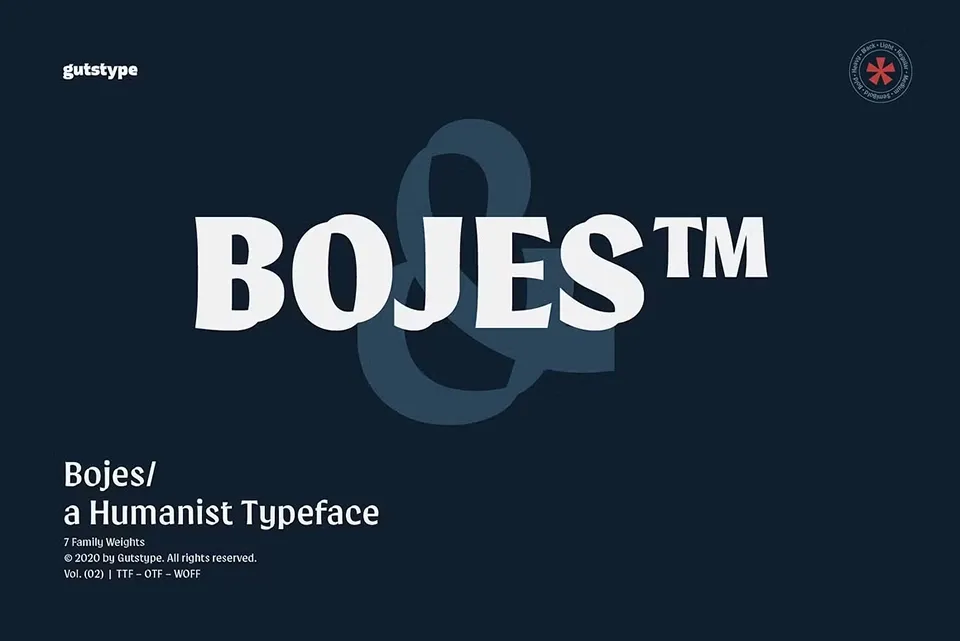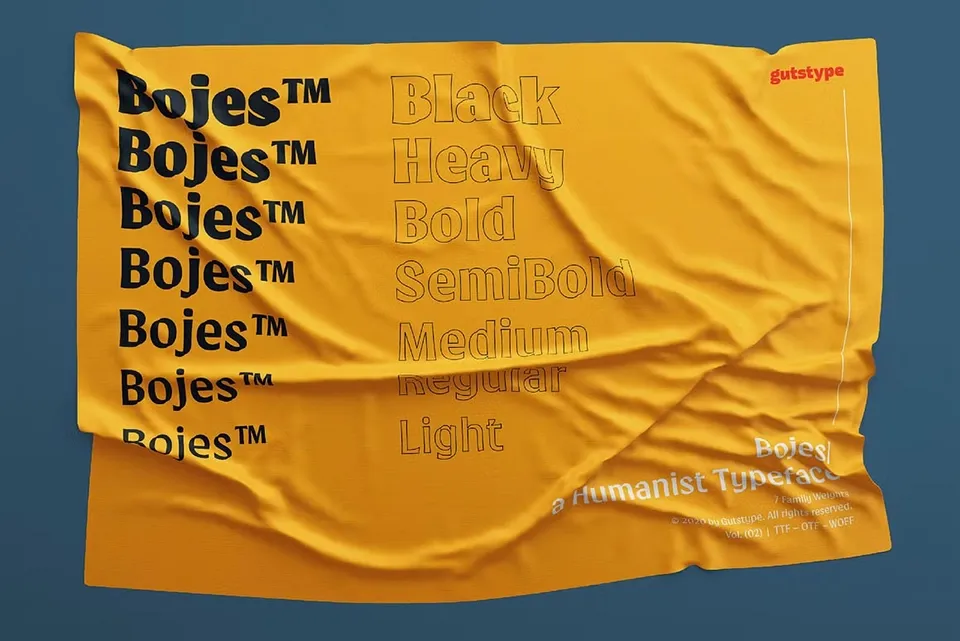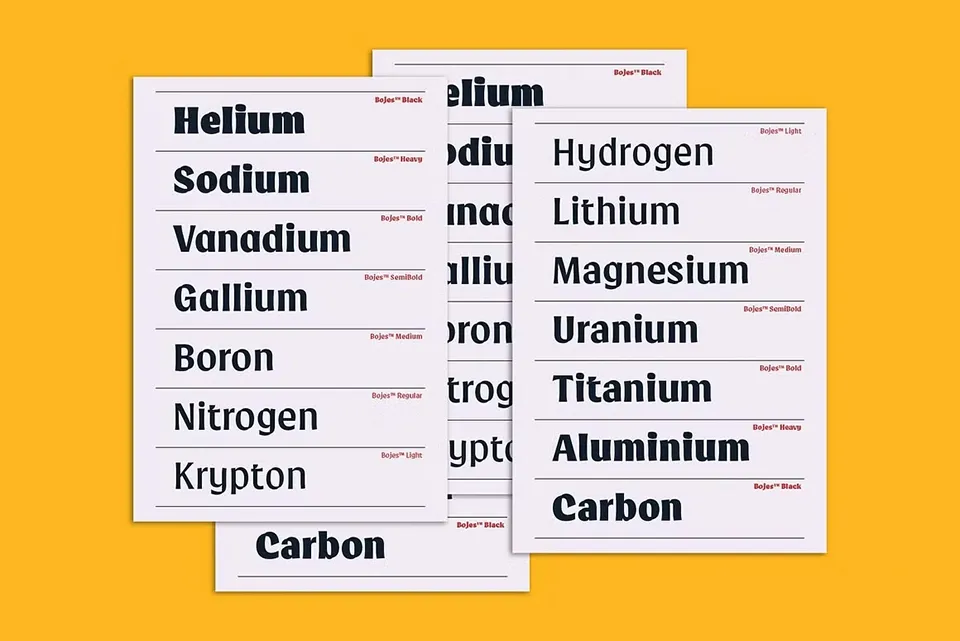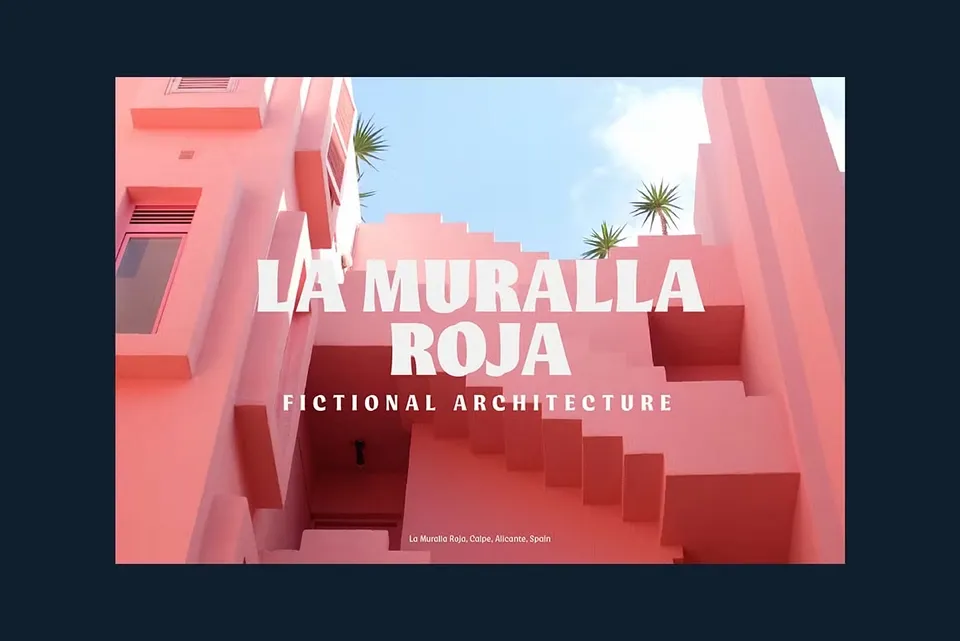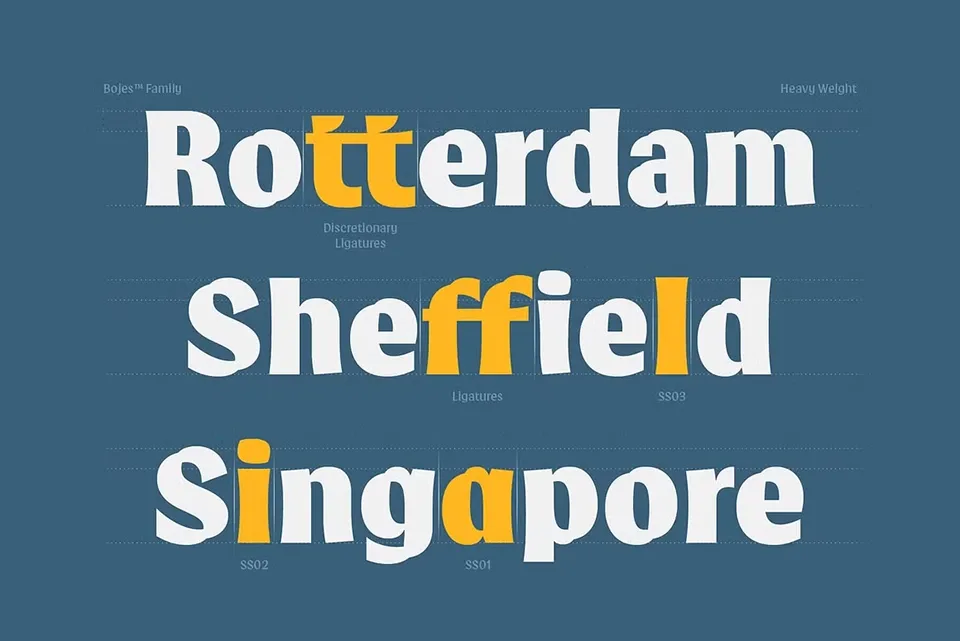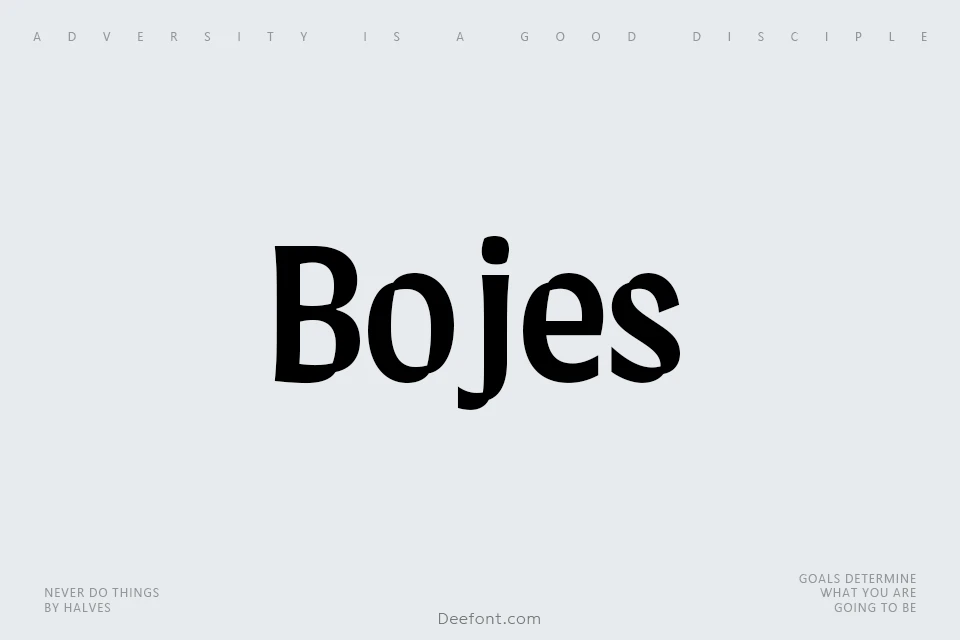
Bojes Typeface
Bojes Typeface is a humanist sans serif font family featuring a clean and modern aesthetic. With 7 family weights ranging from light to heavy, it is versatile and suitable for design magazines, posters, branding, and more. Its humanist style ensures readability and elegance, making it an excellent choice for a variety of creative projects.